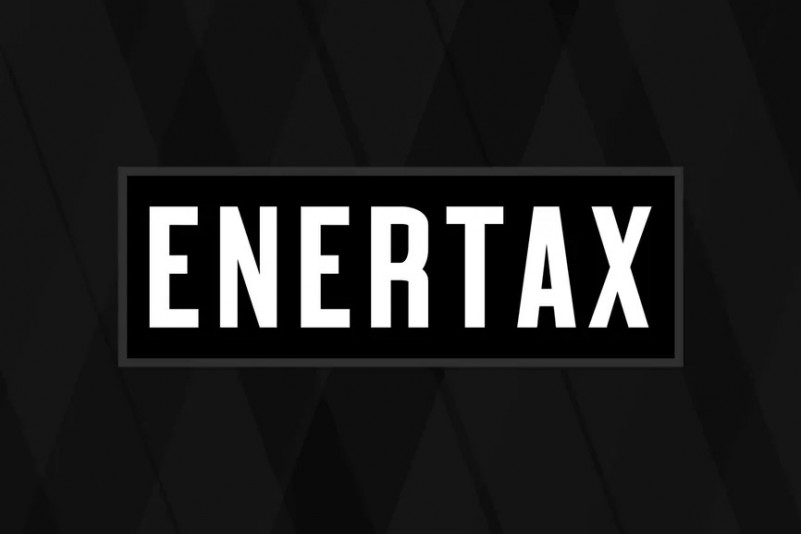
Enertax Font
ENERTAX is a bald Sans Serif with a thick and minimalist characters! it’s perfect for logos, name card, magazine layouts, invitations, headers, posters, branding, packaging.